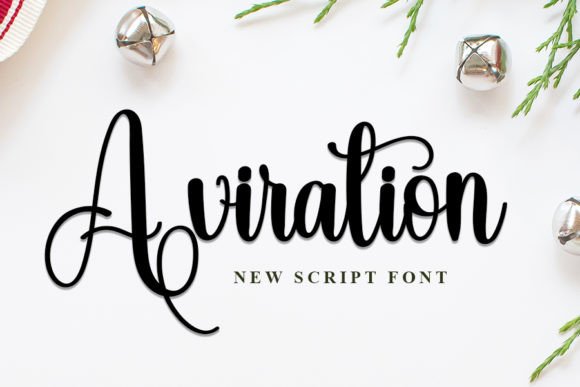
Prepare to be captivated by the mesmerizing charm of Aviration, an enchanting script font that exudes both casual elegance and undeniable versatility. With its graceful curves and captivating flourishes, this font will ignite your creativity and elevate your designs to breathtaking heights.
Imagine your wedding invitations adorned with the delicate strokes of Aviration, transforming them into exquisite works of art that will forever cherish the memory of your special day. Its versatility extends beyond the realm of matrimony, seamlessly adapting to a myriad of creations, from captivating social media posts to stunning stationary art.
Indulge in the boundless possibilities of Aviration, a font meticulously crafted to enhance your creations with a touch of timeless sophistication. Don't resist the allure of its beauty; let it enchant your projects and leave an everlasting impression on all who behold them.